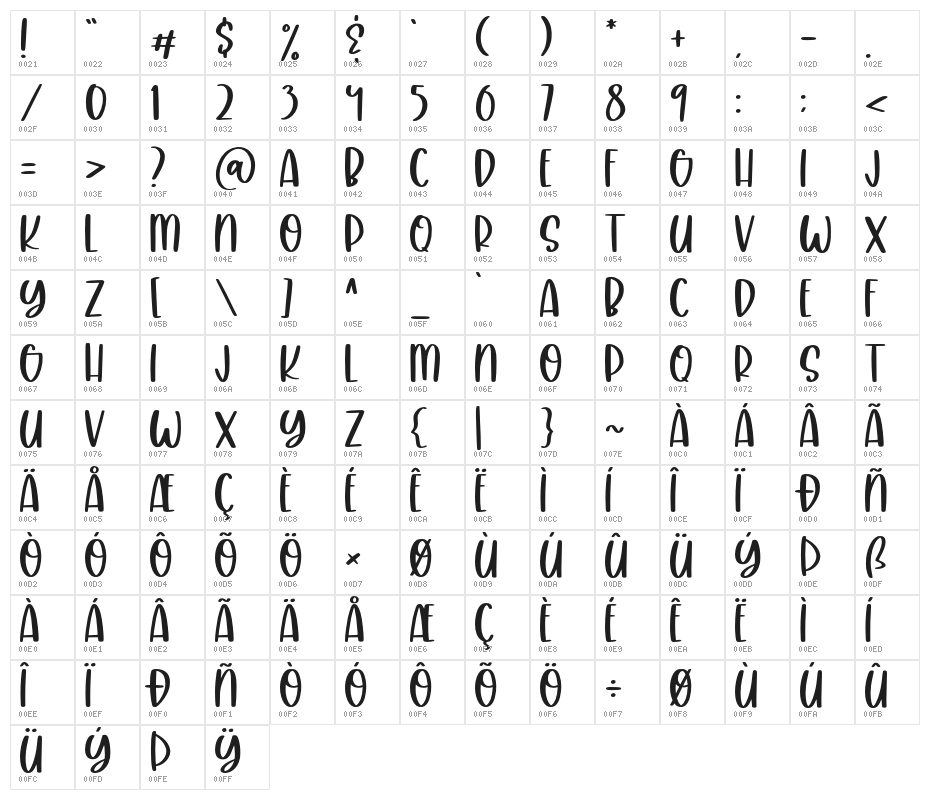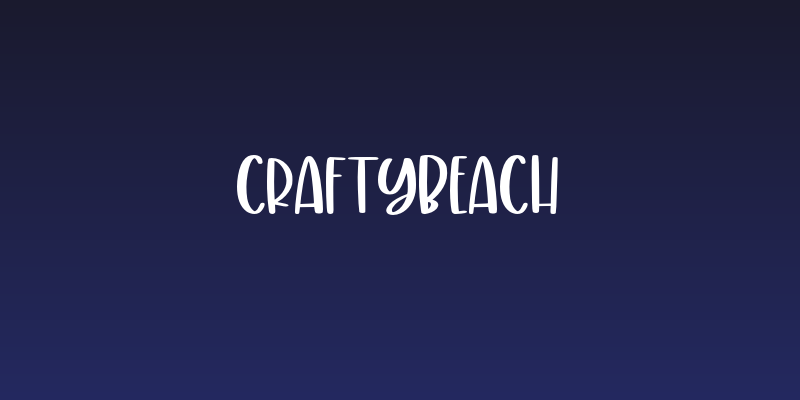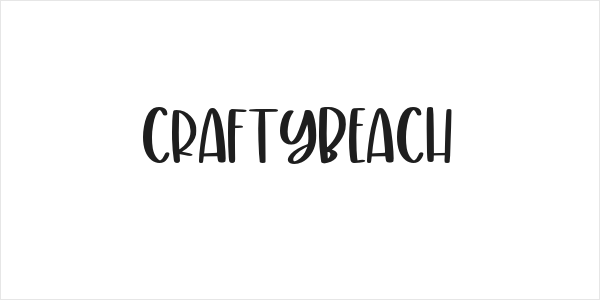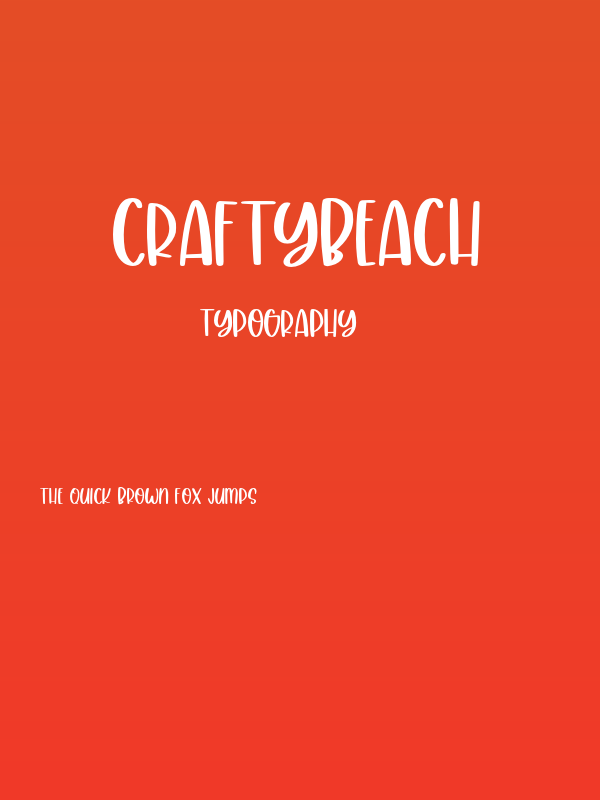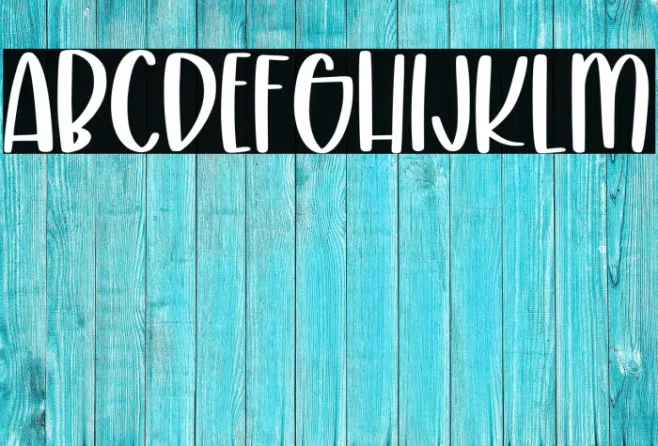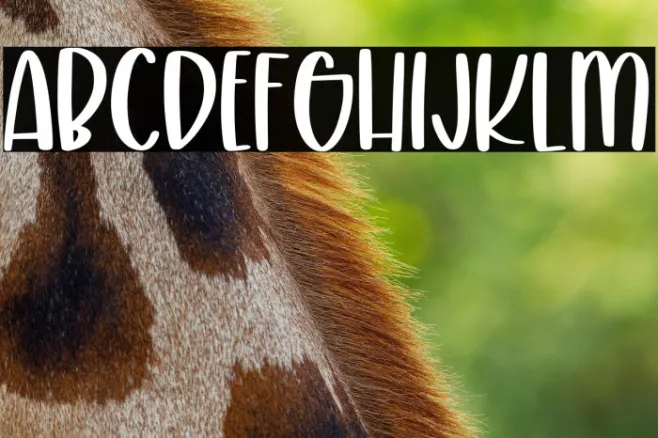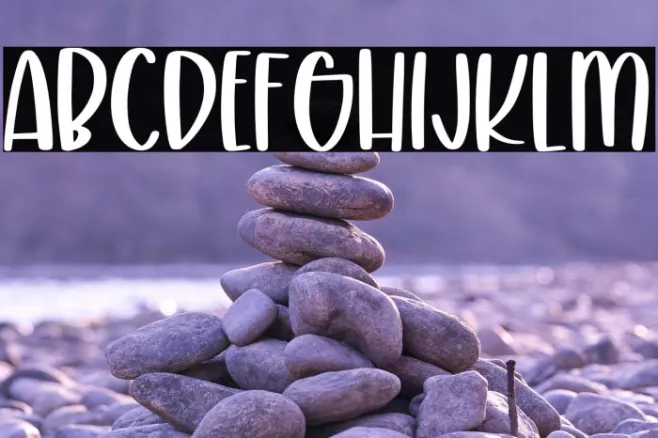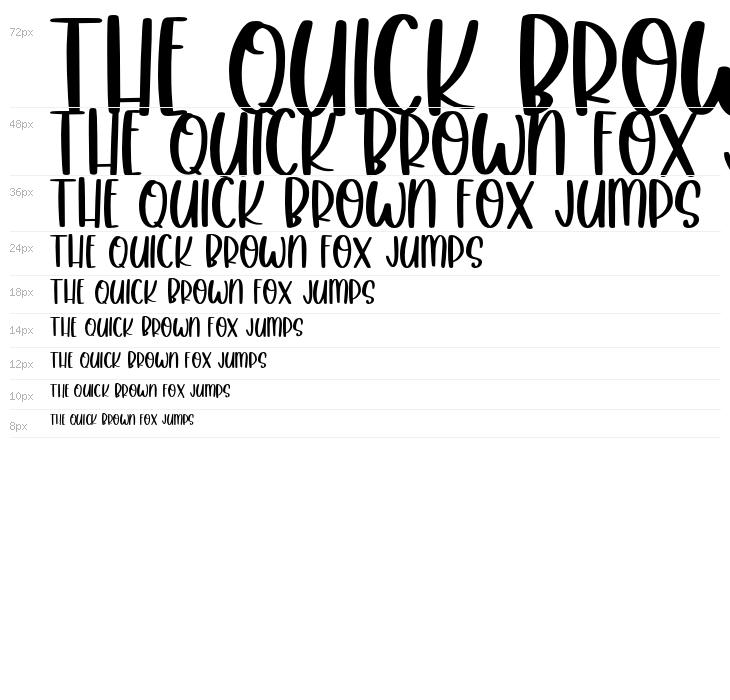
CraftyBeach Font
CraftyBeach Description
This font features a playful and casual handwritten style, characterized by its bold and rounded letterforms. The uppercase and lowercase letters maintain a consistent flow, with slightly exaggerated curves that add a whimsical touch. The numbers and special characters are designed to match the overall aesthetic, making them suitable for creative and informal projects. The font's strokes are thick and uniform, providing a strong visual impact while maintaining readability. Its friendly and approachable appearance makes it ideal for projects that require a personal and inviting feel.
| Proposed Projects | Ideal for greeting cards, invitations, children's books, and playful branding. |